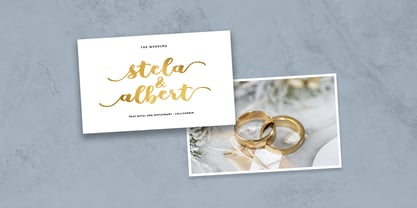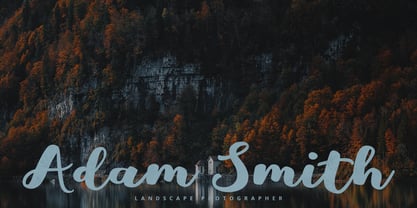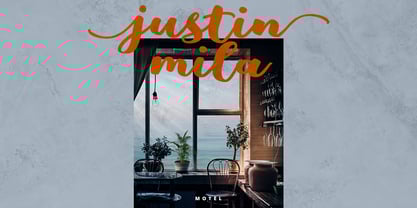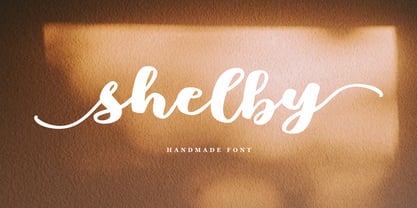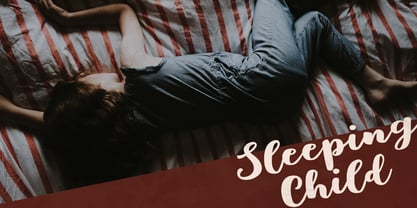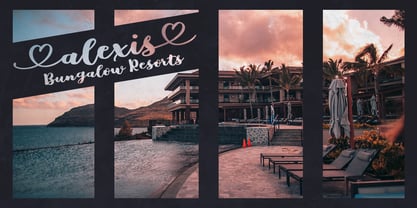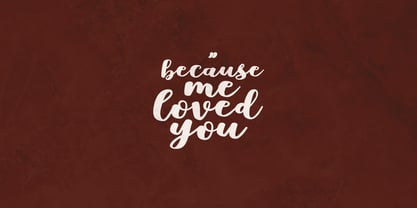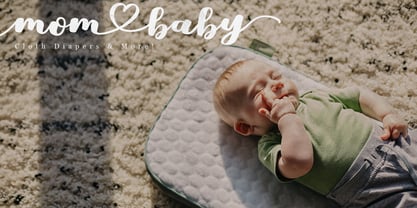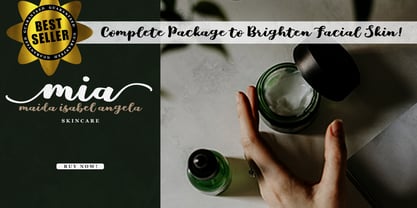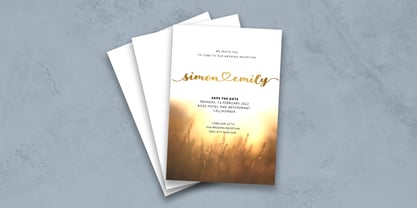
Shelby Script
The Shelby Script Font Family was designed by Titin Saffati and published by Isaka Studios. Shelby Script contains 1 styles. More about this family
Shelby a new handmade script with a style natural, sweet and simple. Made with great care to provide the natural and modern elements. You can find some style when you use it, examples such as natural handwriting style, unique, simple, elegant, bold, etc. This font will be suitable in use for logo's, branding projects, homeware designs, product packaging, mugs, quotes, posters, shopping bags, logo's, t-shirts, book covers, name card, invitation cards, greeting cards, and all your other lovely projects.